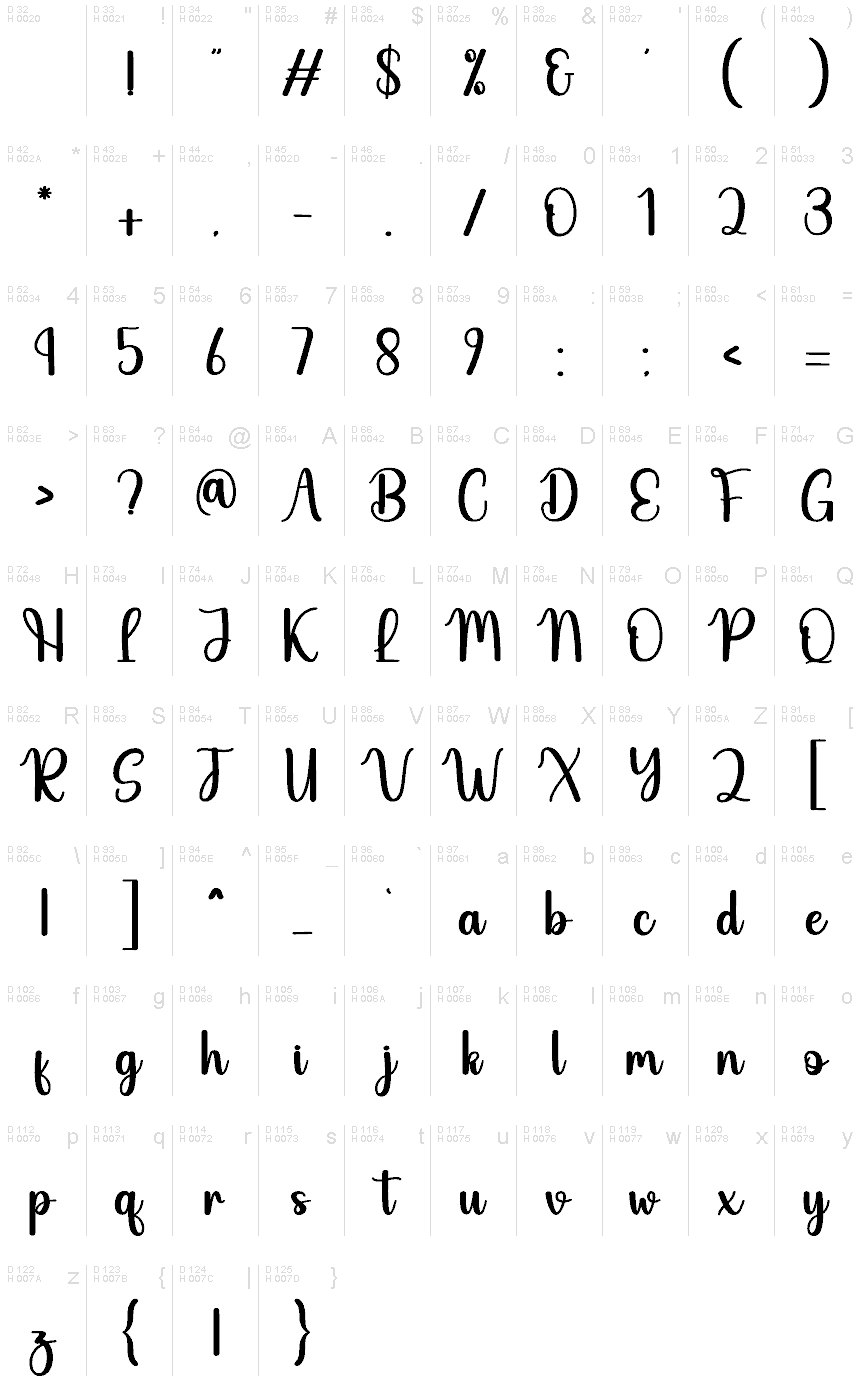
Batwing
Batwing font, designed by Andi Moz, is a free brush font that brings elegance and contemporary style to your design. Its flowing script and handcrafted feel contribute to a personal touch many projects will benefit from. As a versatile resource, Batwing is here to create the designs you envision with ease.
Use it in websites and branding designs, stationery business cards, and invitation cards for events like weddings or parties. Also employ it for packaging boxes, bookmarks, clothing pieces/T-shirts and labels/tags along with social media banners/posts or creative posters/flyers.